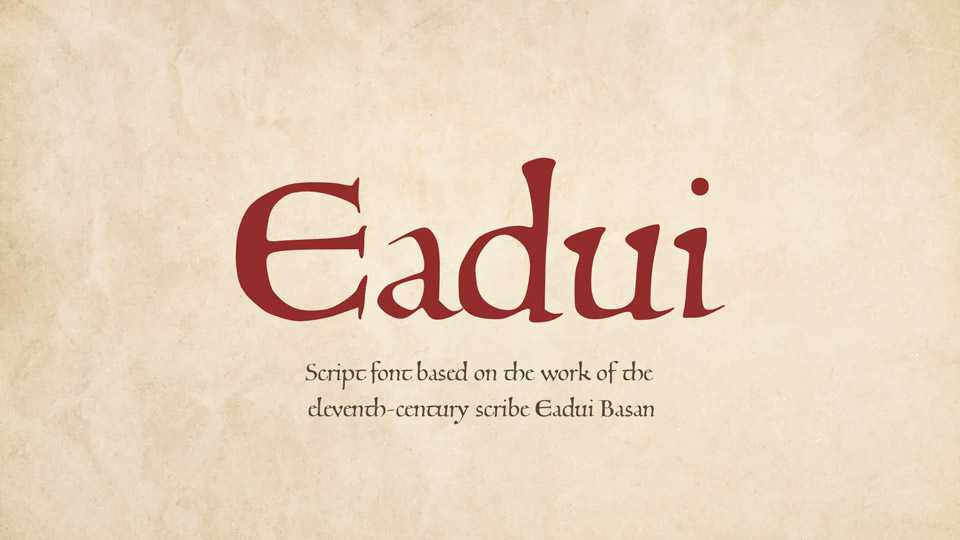
Download Eadui font, a script typeface based on the work of the eleventh-century scribe Eadui Basan. Eadui aims to reroduce a great scribe’s style with fidelity, avoiding the machined look of the digital font in favor of the irregular and uneven look of a handmade thing.
Designer: Peter Baker